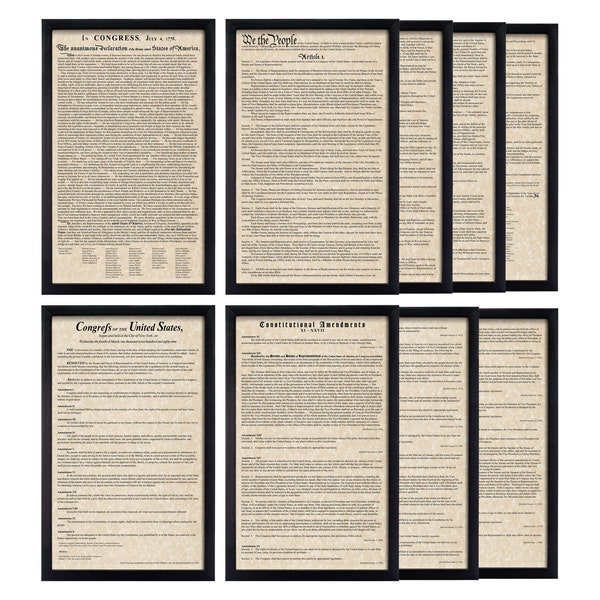
Declaration Of Independence Font . Download a free font inspired by the handwriting of timothy matlack, who copied the declaration of independence. A script font that features the look of classic 18th century penmanship as found on documents and an accompanying blackletter font is also derived. It contains 3 styles and supports accented. 1776 independence is a font family designed by glc, based on the caslon typeface used to print the first copies of the declaration of independence in 1776. The first of its kind, american scribe replicates the penmanship of the man who engrossed the declaration of. This font is free only for personal use. American scribe is a font that replicates the penmanship of timothy matlack, who engrossed the famous declaration of independence. Explore declaration of independence fonts at myfonts. The purely typographic broadside that was distributed exactly 236 years ago today, now known as the dunlap broadside, is the first version that actually spread the declaration of independence to the rest of the world. Discover a world of captivating typography for your creative projects. Learn about the history and features of this script font and how to use it. American scribe is a typeface designed in 2003 by brian willson of three islands press.
Discover a world of captivating typography for your creative projects. A script font that features the look of classic 18th century penmanship as found on documents and an accompanying blackletter font is also derived. American scribe is a font that replicates the penmanship of timothy matlack, who engrossed the famous declaration of independence. Download a free font inspired by the handwriting of timothy matlack, who copied the declaration of independence. The first of its kind, american scribe replicates the penmanship of the man who engrossed the declaration of. It contains 3 styles and supports accented. 1776 independence is a font family designed by glc, based on the caslon typeface used to print the first copies of the declaration of independence in 1776. Learn about the history and features of this script font and how to use it. Explore declaration of independence fonts at myfonts. American scribe is a typeface designed in 2003 by brian willson of three islands press.
Declaration Of Independence Font American scribe is a font that replicates the penmanship of timothy matlack, who engrossed the famous declaration of independence. 1776 independence is a font family designed by glc, based on the caslon typeface used to print the first copies of the declaration of independence in 1776. Learn about the history and features of this script font and how to use it. The first of its kind, american scribe replicates the penmanship of the man who engrossed the declaration of. American scribe is a typeface designed in 2003 by brian willson of three islands press. This font is free only for personal use. Download a free font inspired by the handwriting of timothy matlack, who copied the declaration of independence. The purely typographic broadside that was distributed exactly 236 years ago today, now known as the dunlap broadside, is the first version that actually spread the declaration of independence to the rest of the world. It contains 3 styles and supports accented. Discover a world of captivating typography for your creative projects. A script font that features the look of classic 18th century penmanship as found on documents and an accompanying blackletter font is also derived. Explore declaration of independence fonts at myfonts. American scribe is a font that replicates the penmanship of timothy matlack, who engrossed the famous declaration of independence.
Declaration Of Independence Font The purely typographic broadside that was distributed exactly 236 years ago today, now known as the dunlap broadside, is the first version that actually spread the declaration of independence to the rest of the world. American scribe is a typeface designed in 2003 by brian willson of three islands press. Discover a world of captivating typography for your creative projects.. Declaration Of Independence Font.
Declaration Of Independence Font This font is free only for personal use. Discover a world of captivating typography for your creative projects. Learn about the history and features of this script font and how to use it. A script font that features the look of classic 18th century penmanship as found on documents and an accompanying blackletter font is also derived. American scribe is. Declaration Of Independence Font.
Declaration of Independence A rare printing on silk of the first Declaration Of Independence Font A script font that features the look of classic 18th century penmanship as found on documents and an accompanying blackletter font is also derived. Explore declaration of independence fonts at myfonts. Download a free font inspired by the handwriting of timothy matlack, who copied the declaration of independence. American scribe is a typeface designed in 2003 by brian willson of. Declaration Of Independence Font.
Declaration Of Independence Font The purely typographic broadside that was distributed exactly 236 years ago today, now known as the dunlap broadside, is the first version that actually spread the declaration of independence to the rest of the world. This font is free only for personal use. The first of its kind, american scribe replicates the penmanship of the man who engrossed the declaration. Declaration Of Independence Font.
The Dunlap Broadside Fonts In Use Declaration Of Independence Font Discover a world of captivating typography for your creative projects. The purely typographic broadside that was distributed exactly 236 years ago today, now known as the dunlap broadside, is the first version that actually spread the declaration of independence to the rest of the world. 1776 independence is a font family designed by glc, based on the caslon typeface used. Declaration Of Independence Font.
Declaration Of Independence Font American scribe is a font that replicates the penmanship of timothy matlack, who engrossed the famous declaration of independence. Download a free font inspired by the handwriting of timothy matlack, who copied the declaration of independence. American scribe is a typeface designed in 2003 by brian willson of three islands press. The first of its kind, american scribe replicates the. Declaration Of Independence Font.
Declaration Of Independence Font 1776 independence is a font family designed by glc, based on the caslon typeface used to print the first copies of the declaration of independence in 1776. Learn about the history and features of this script font and how to use it. A script font that features the look of classic 18th century penmanship as found on documents and an. Declaration Of Independence Font.
Declaration Of Independence Font 1776 independence is a font family designed by glc, based on the caslon typeface used to print the first copies of the declaration of independence in 1776. Explore declaration of independence fonts at myfonts. It contains 3 styles and supports accented. The first of its kind, american scribe replicates the penmanship of the man who engrossed the declaration of. Download. Declaration Of Independence Font.
Declaration Of Independence Font Generator Cowboy Western Font Free Declaration Of Independence Font Explore declaration of independence fonts at myfonts. The first of its kind, american scribe replicates the penmanship of the man who engrossed the declaration of. American scribe is a font that replicates the penmanship of timothy matlack, who engrossed the famous declaration of independence. Download a free font inspired by the handwriting of timothy matlack, who copied the declaration of. Declaration Of Independence Font.